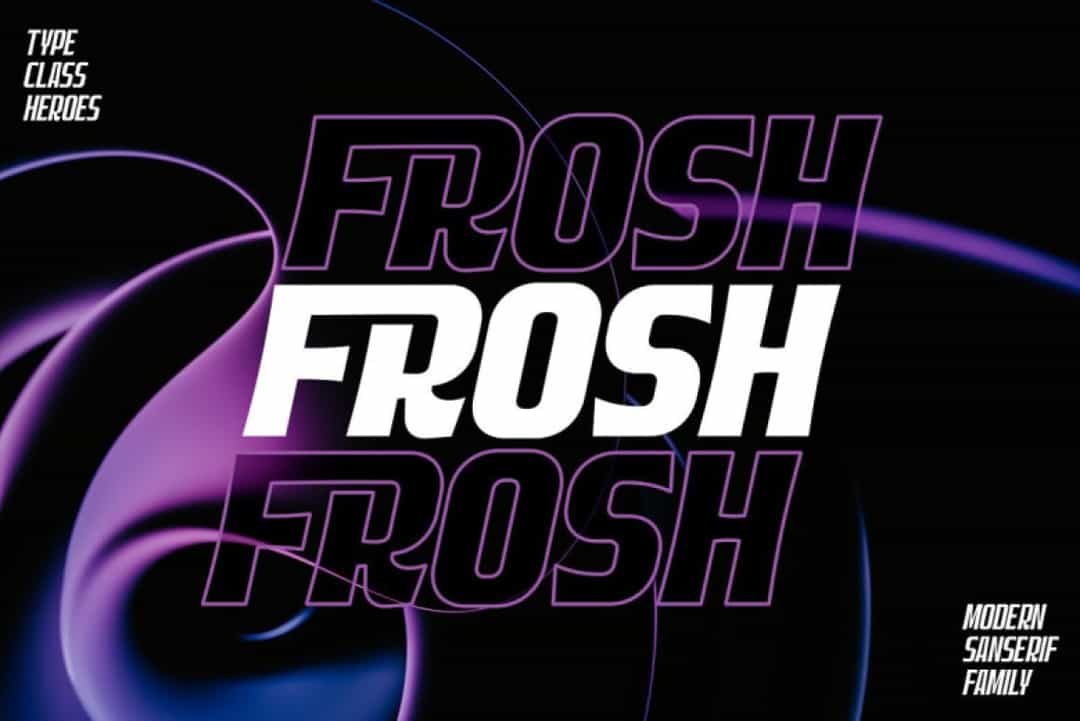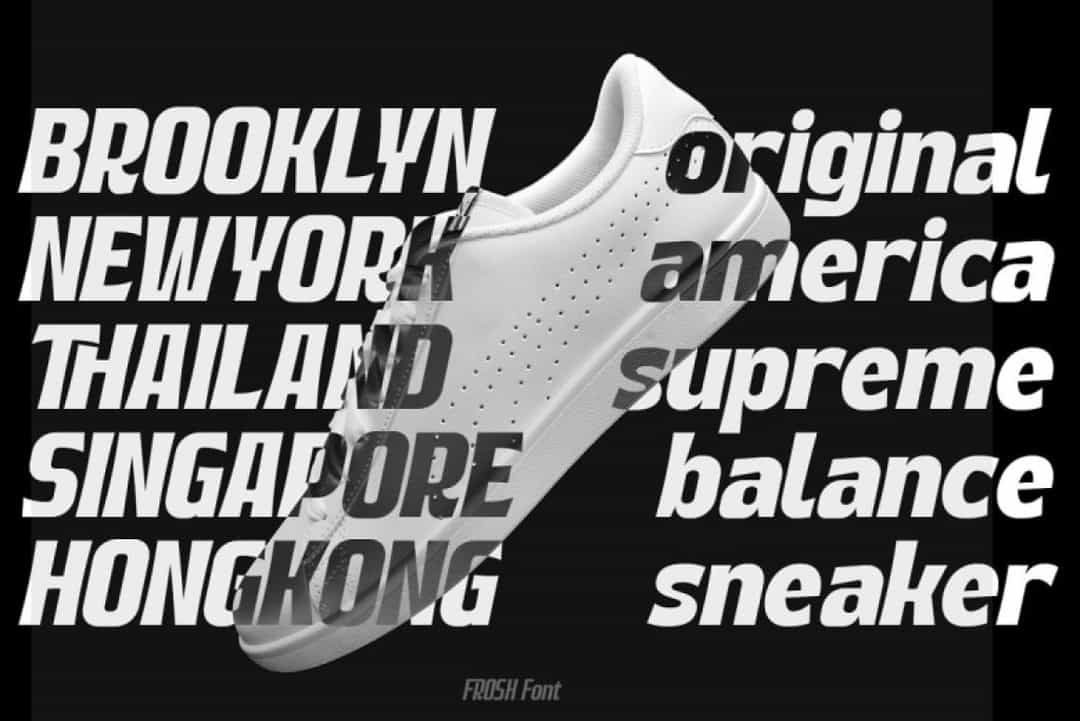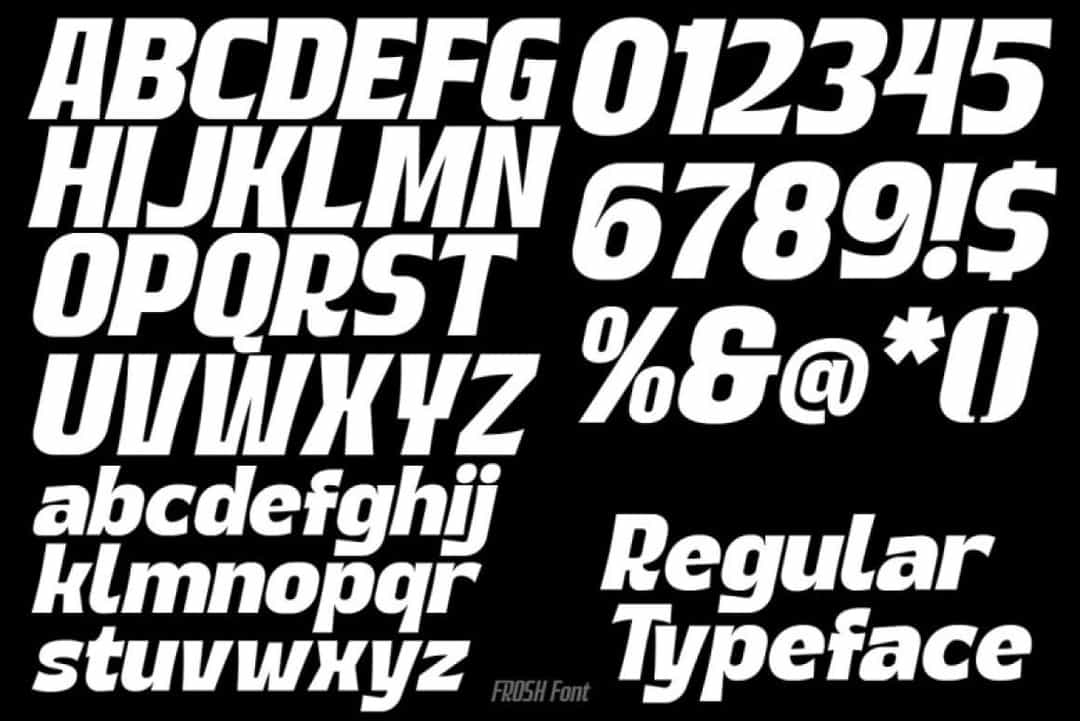
Frosh is an eye-catching modern sans-serif font family with stylistic, alternative and ligature elements and multilingual support. Available in various weights with variable sizes and weights to experiment with and mix for fun results – use Frosh font family for branding purposes such as packaging for products invitations quotes labels t-shirt logo posters etc.